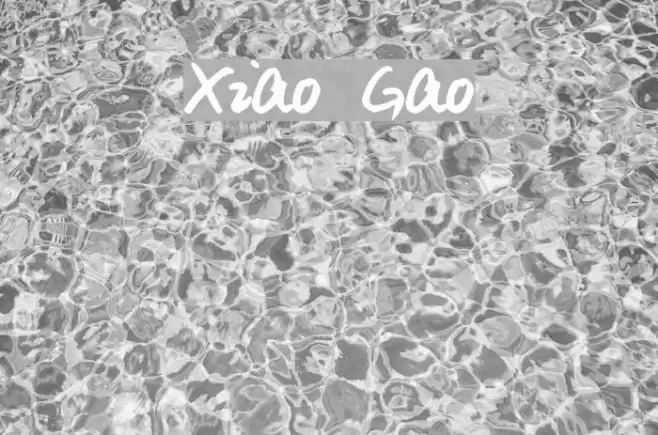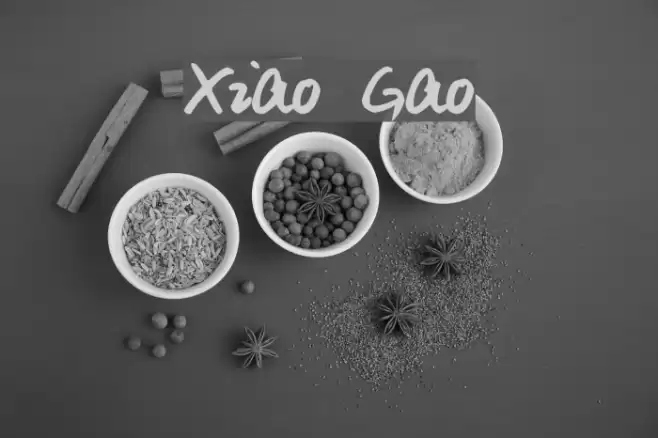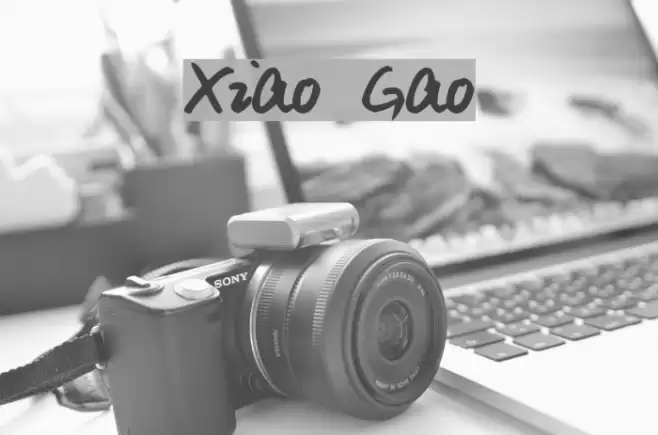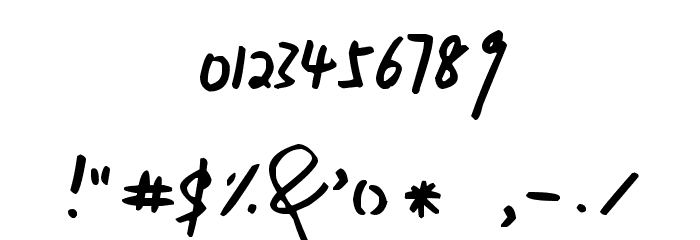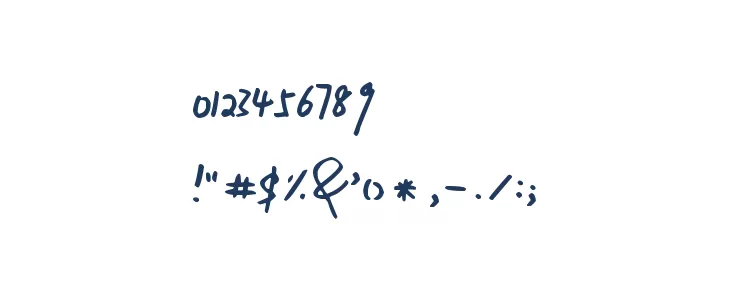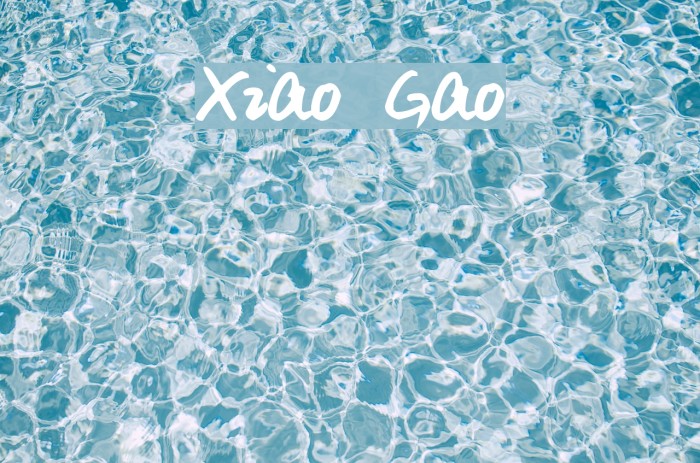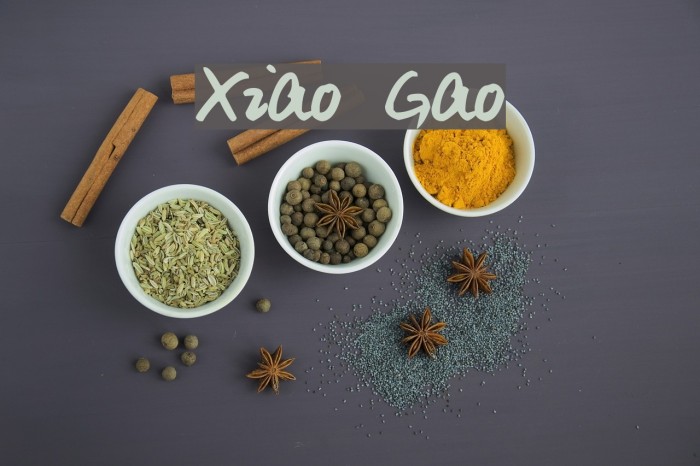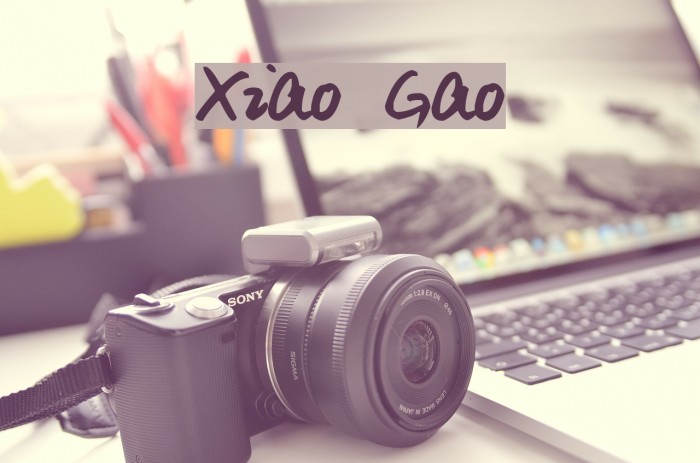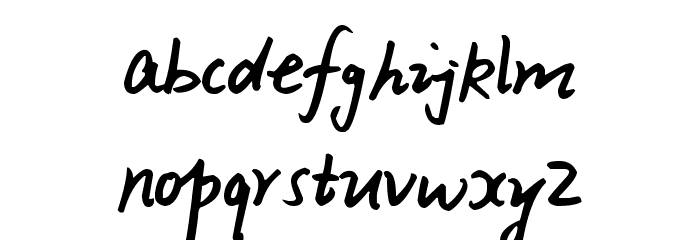
Xiao Gao Font
Xiao Gao Description
This font exudes a casual, handwritten style that is both approachable and dynamic. The letters are slightly slanted, giving a sense of movement and fluidity. The strokes vary in thickness, adding a natural, organic feel to the text. The uppercase letters are bold and confident, while the lowercase letters maintain a consistent flow, enhancing readability. Numbers and special characters are crafted with the same playful yet clear design, making them versatile for various uses. Overall, this font captures the essence of personal handwriting with a modern twist.
A casual, handwritten font with dynamic, slanted strokes and varying thickness from Handwritten fonts.
- Proposed Projects: Ideal for personal branding, greeting cards, informal invitations, and creative projects that require a personal touch.
- Use Case: Logos, Headlines, Informal Text